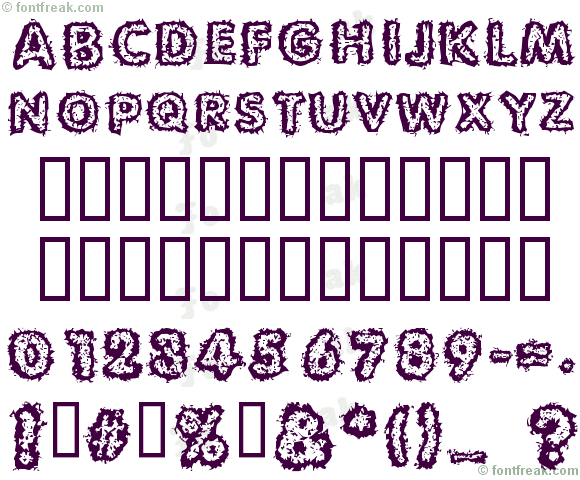
Carvings
About Carvings
The Carvings font by Dustbust Fonts is a distinctive decorative typeface that brings a unique, artistic flair to any project. Released under a freeware license, it offers graphic designers, small business owners, and content creators an exciting option for various design needs. This font features a bold, chiseled appearance, combined with rugged edges that evoke a sense of craftsmanship and organic artistry. The stroke weight is consistent, providing a solid presence, while the spacing is well-balanced, ensuring legibility even in smaller sizes.
Visually, Carvings showcases an intricate design that includes various decorative elements, giving it a textured feel reminiscent of hand-carved stone or wood. This makes it particularly suitable for use in wedding invitations, where its artistic nature can add a personalized touch. Additionally, it works well for movie posters, where its unique characteristics can capture attention and convey a sense of adventure or creativity. Restaurant menus can also benefit from this font, especially in establishments that emphasize a rustic or artisanal theme. Moreover, the Carvings font is ideal for branding projects that aim to convey authenticity and craftsmanship.
The target audience for this font includes graphic designers seeking to enhance their projects with a distinctive typeface, small business owners looking to create memorable branding, and content creators who wish to add a unique touch to their visual content. In a marketplace saturated with standard fonts, the Carvings font stands out due to its handcrafted quality and artistic appeal. By offering a fresh take on decorative typography, it allows users to express creativity while maintaining a professional edge. For those interested, the Carvings font free download is a fantastic opportunity to elevate any design project with a touch of artistry.